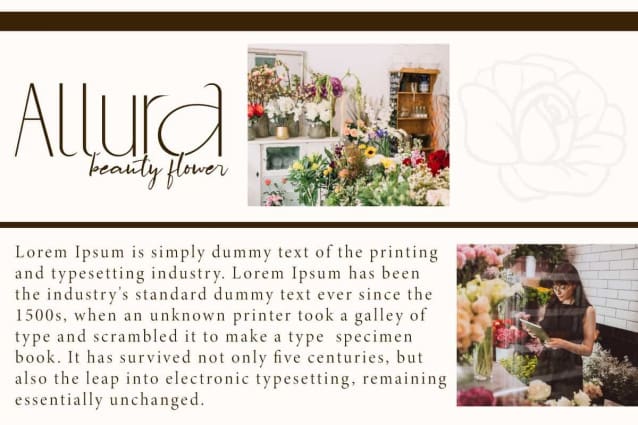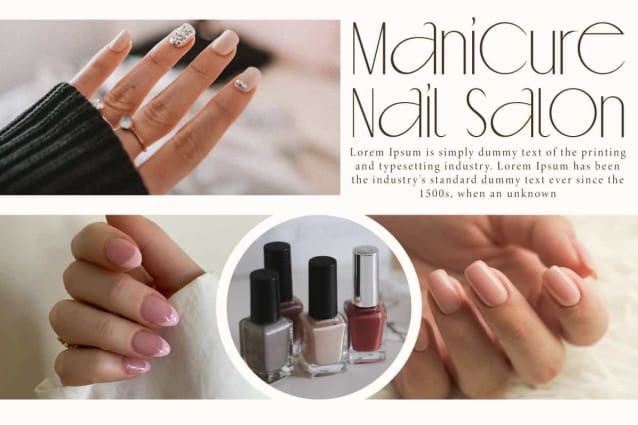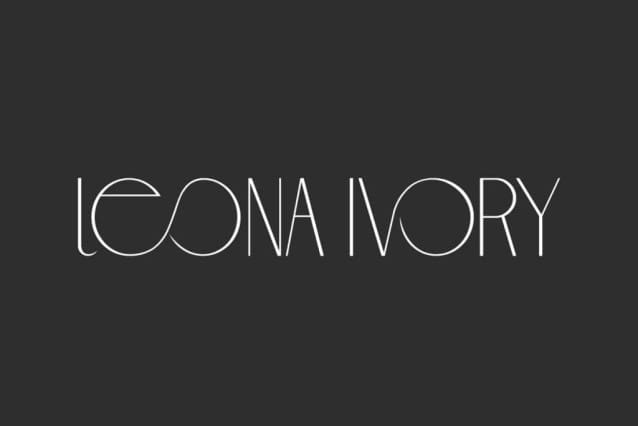
Leona Ivory Font
Leona Ivory Font is a sophisticated sans serif display font that has a visually appealing character, this font is equipped with various customizable ligatures, making it an elegant typeface. It would be perfect for any projects, such as advertising, blog, brand image, brochure, salon, spa, template designing purposes, quotes, website, and more.
Leona Ivory Font includes a complete set of Uppercase and Lowercase Basic Characters, Numbers, Punctuation, and Symbols. This font features graceful curves and unique letterforms that are perfect for accessories and jewelry, beauty product, clothing brand, event or wedding organizer, fashion, florist, furniture, real estate, spa salon, etc.